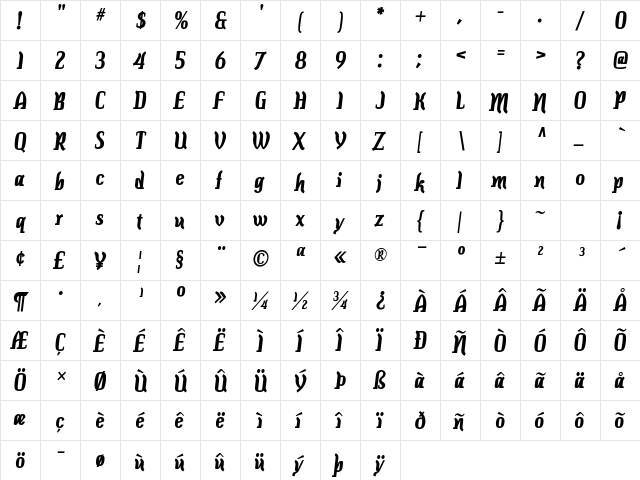
Colourbars Bold
Design Context for Colourbars Typeface
Colourbars is a composed and adaptable typeface that performs quietly and consistently across a wide range of design contexts. The heavy weight commands attention and anchors typographic hierarchies.